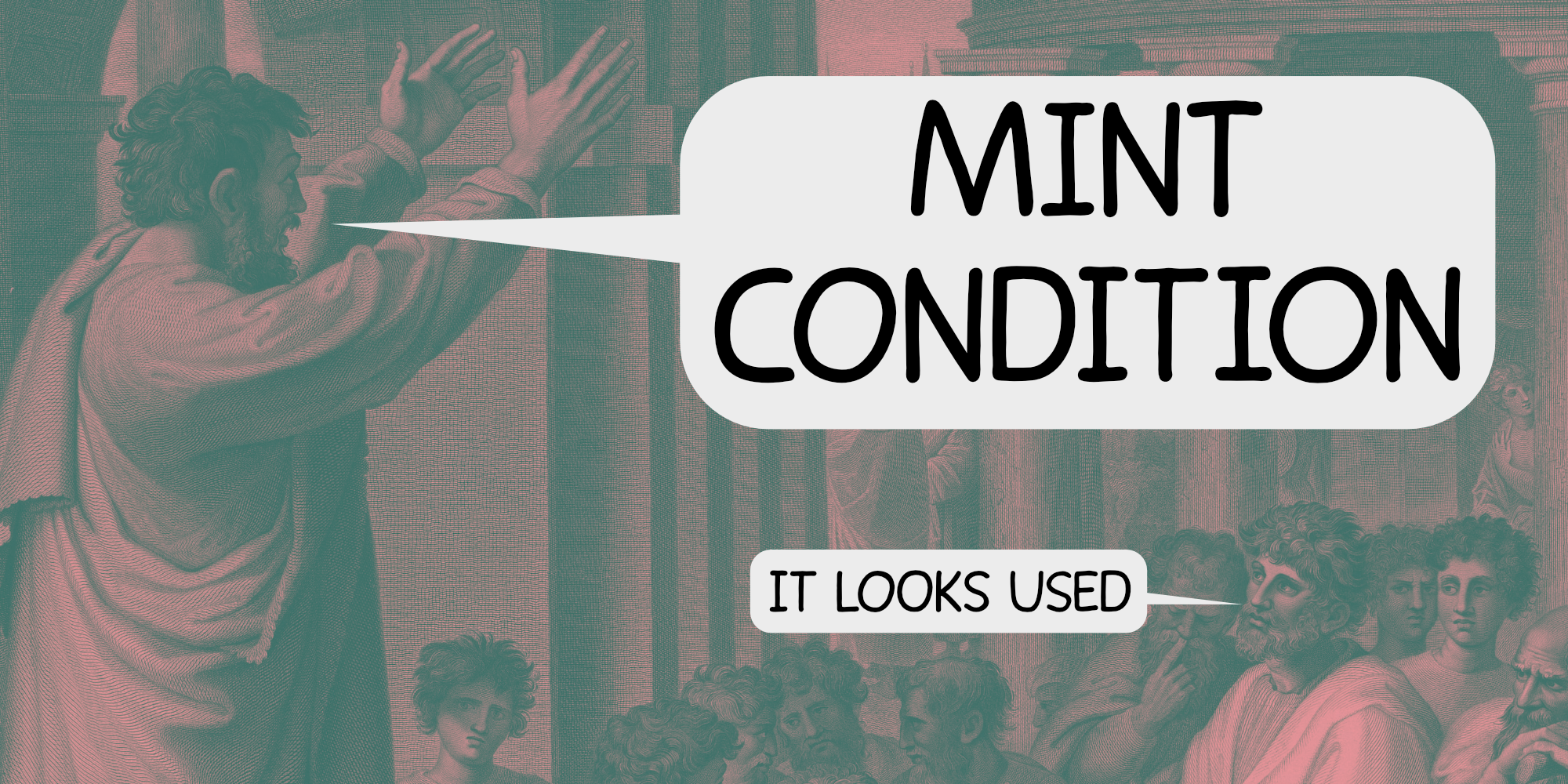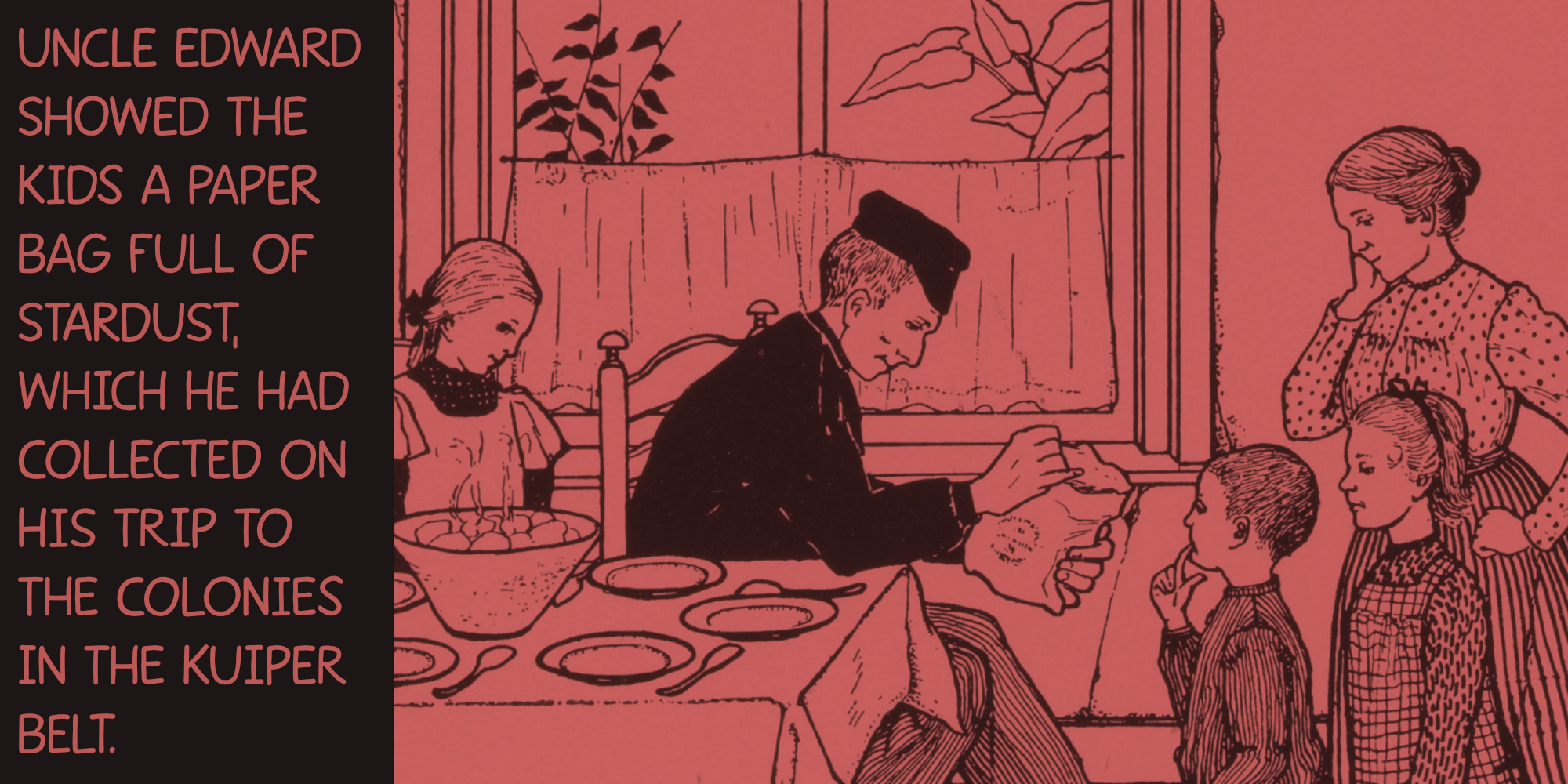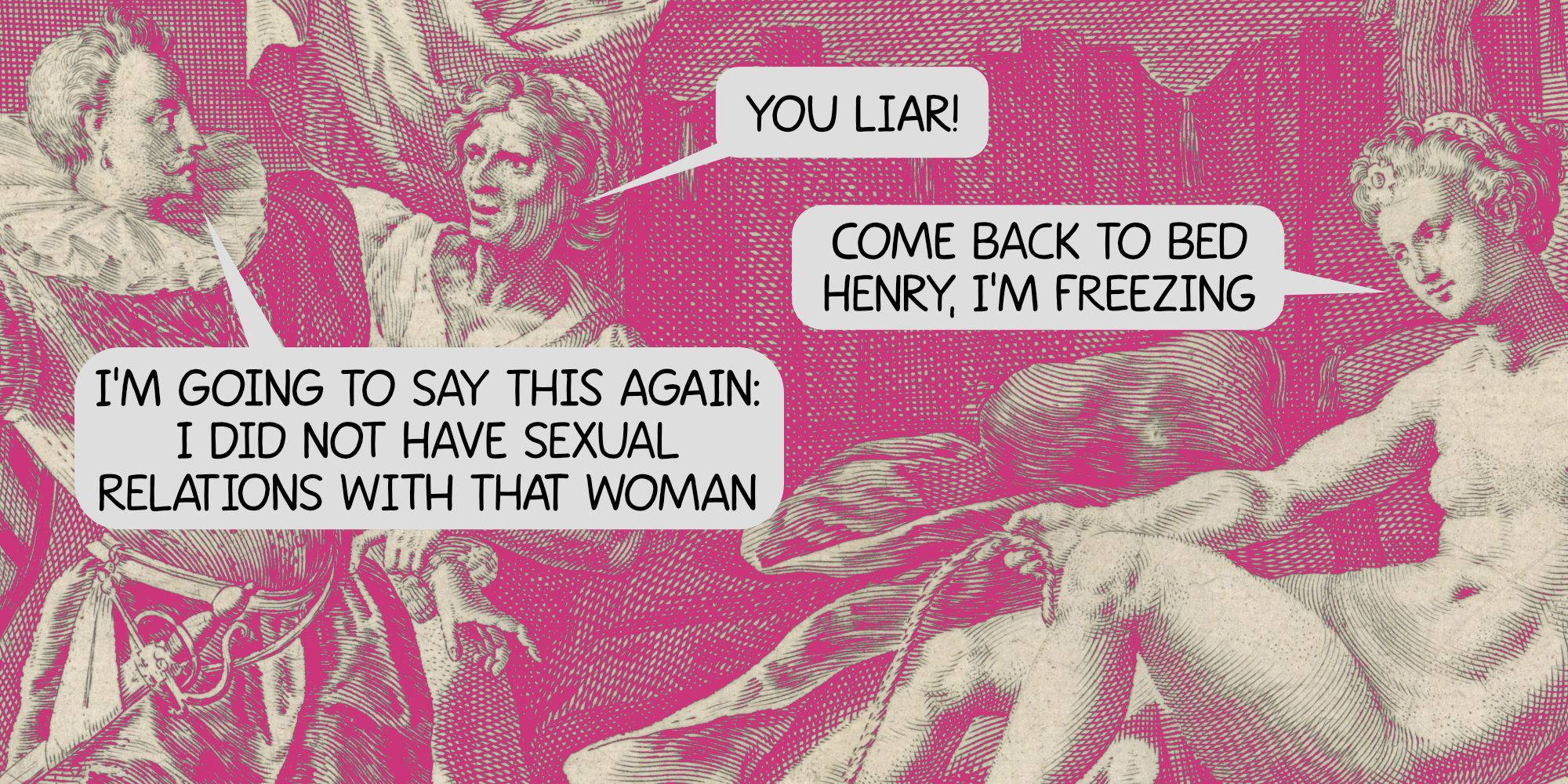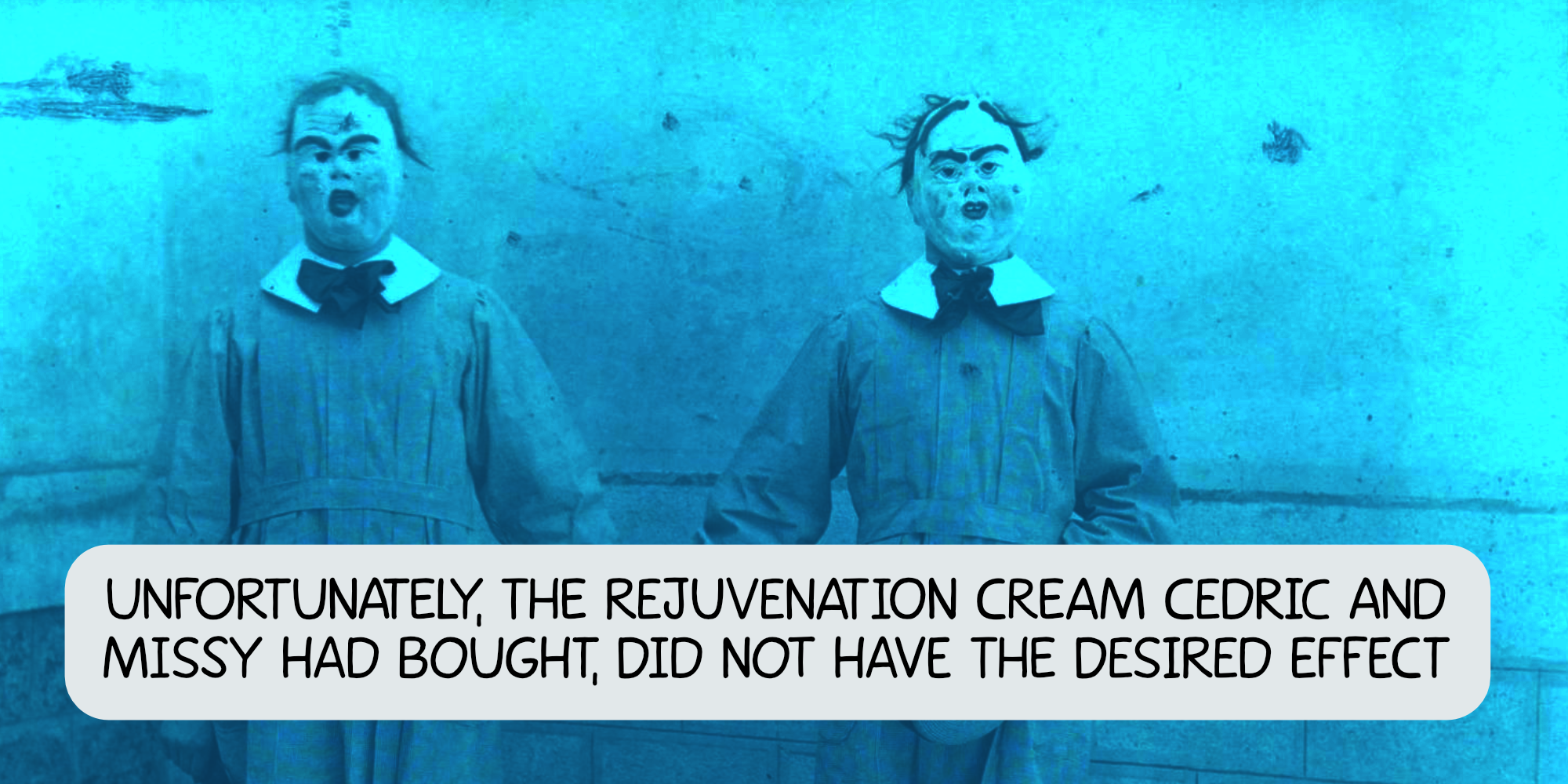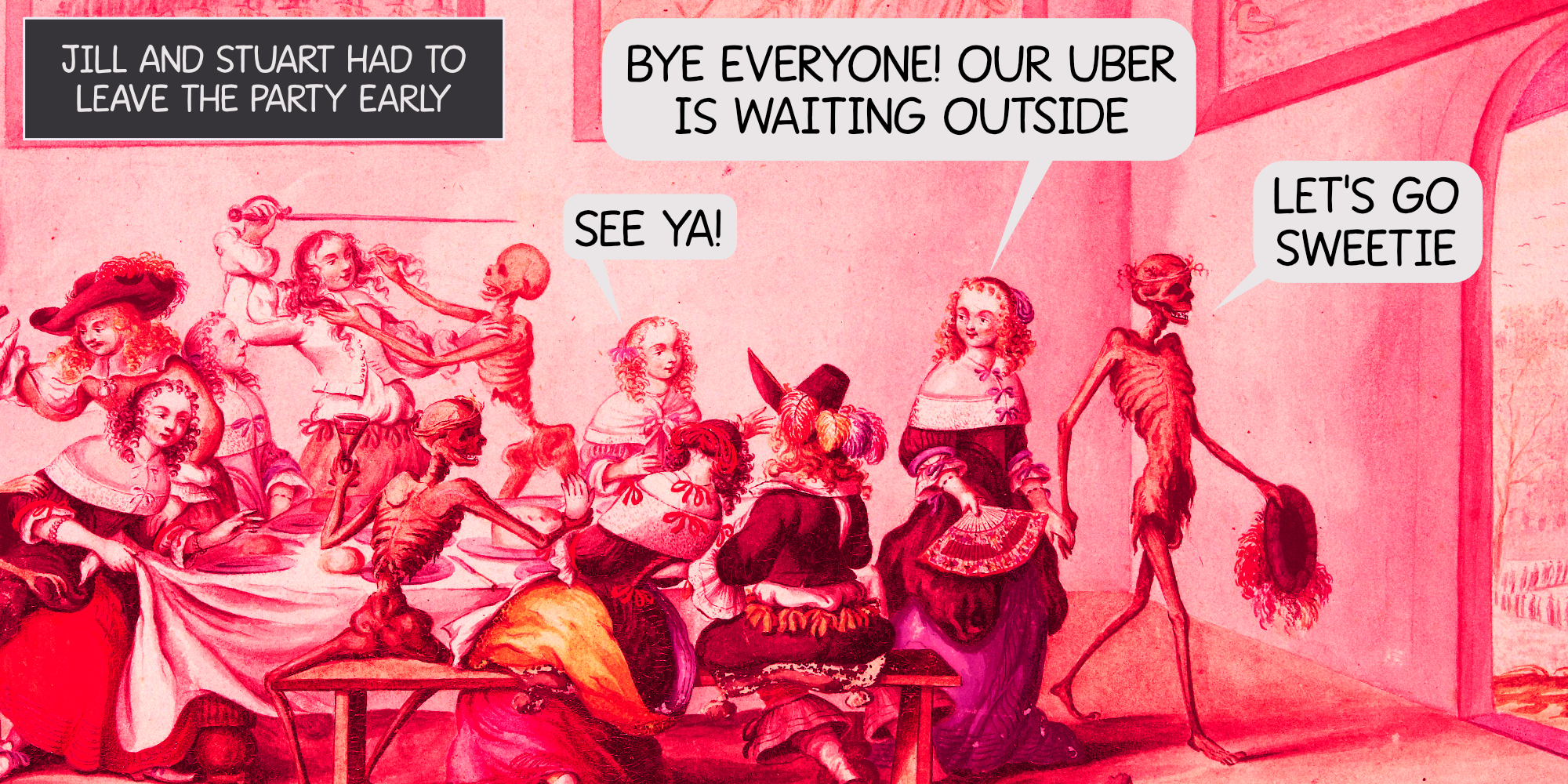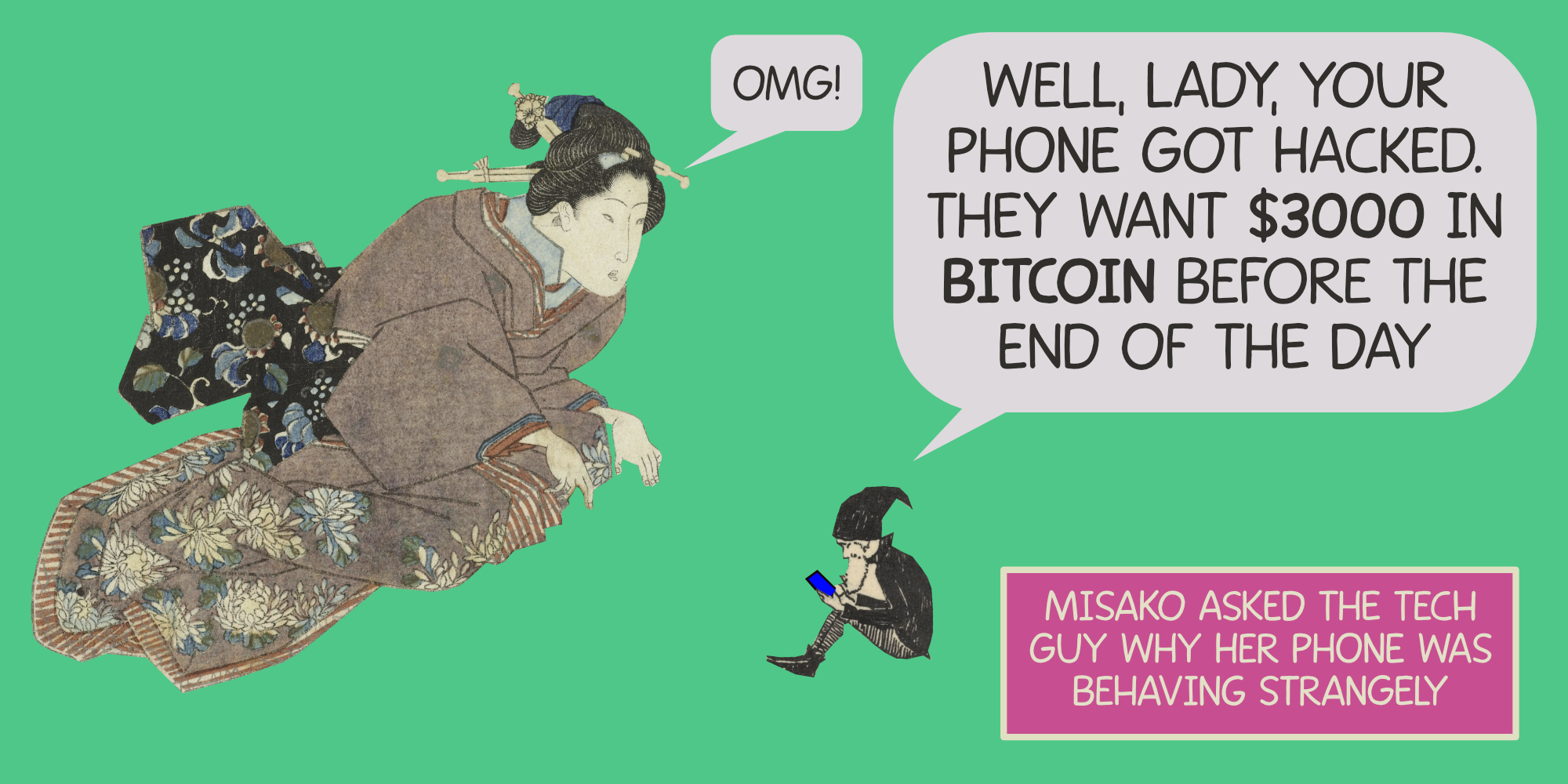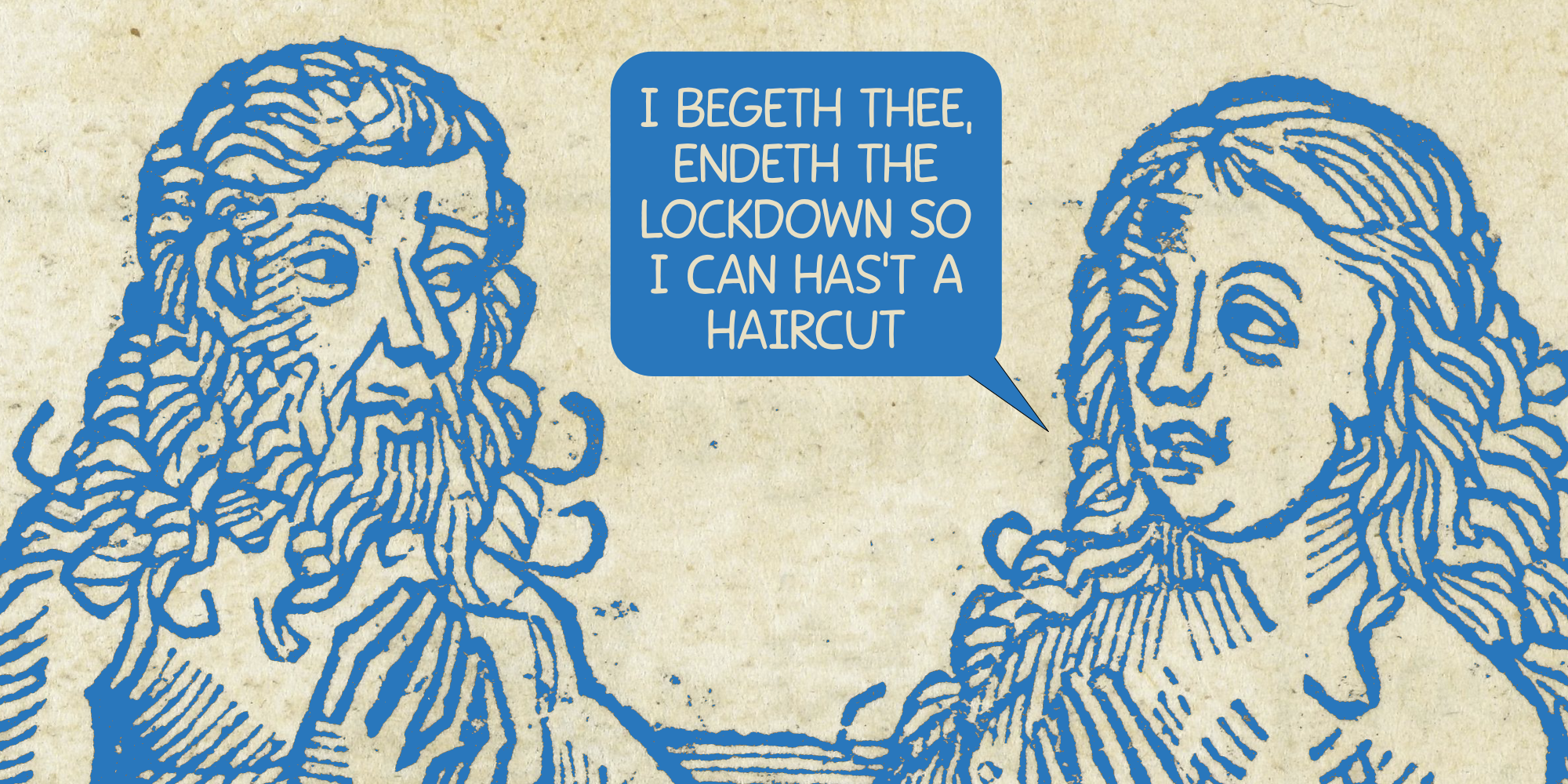
Mint Condition (2 fonts)
I thought it would be nice to create a font that mimics the lettering found in comics. Mint condition is a very nice, very friendly handmade comic book font that comes with extensive language support (including Vietnamese and Cyrillic), plus two sets of alternate glyphs.